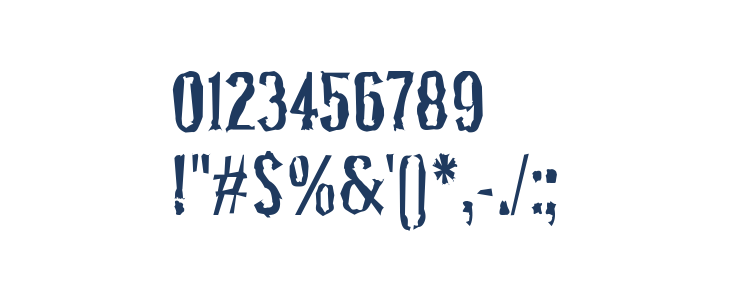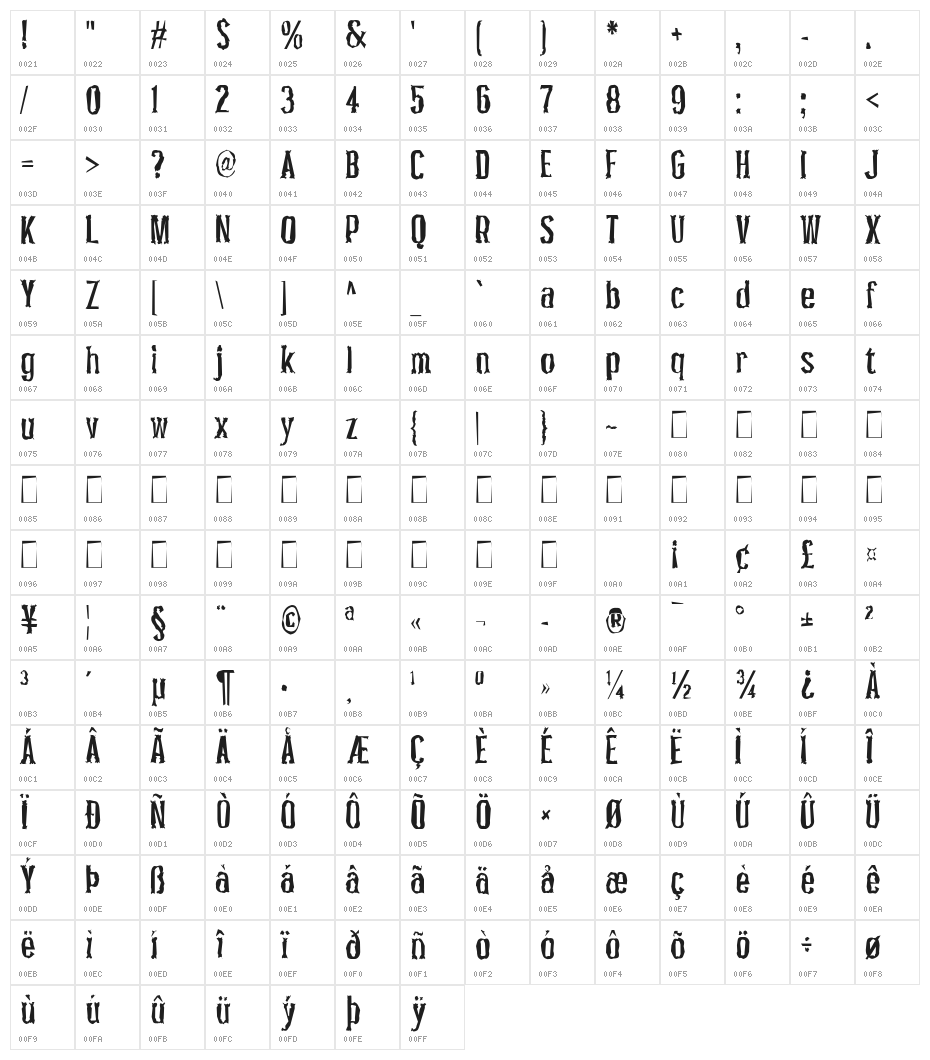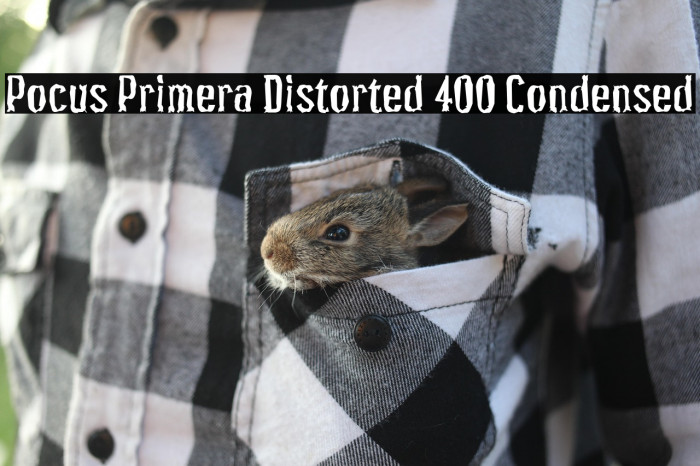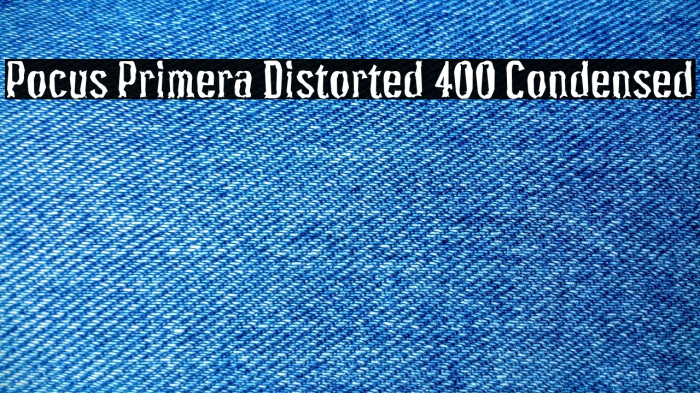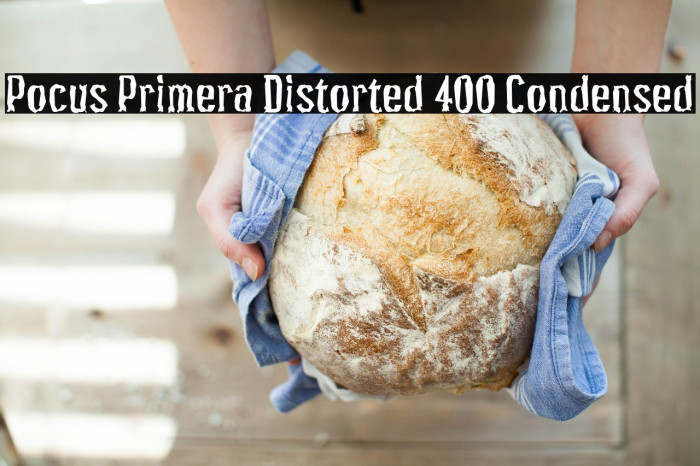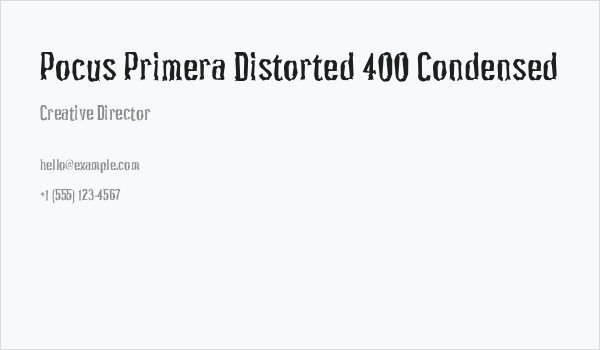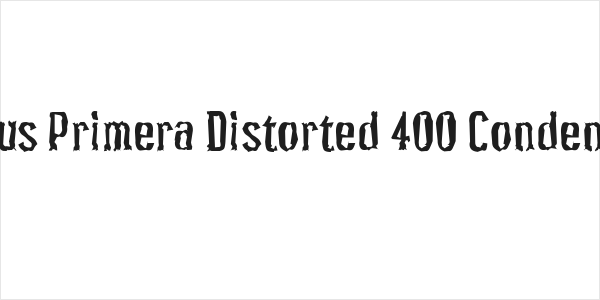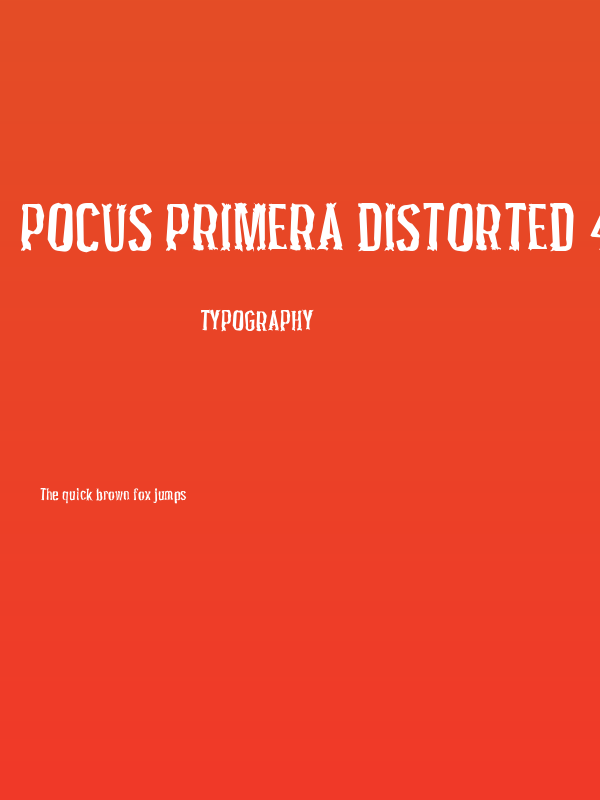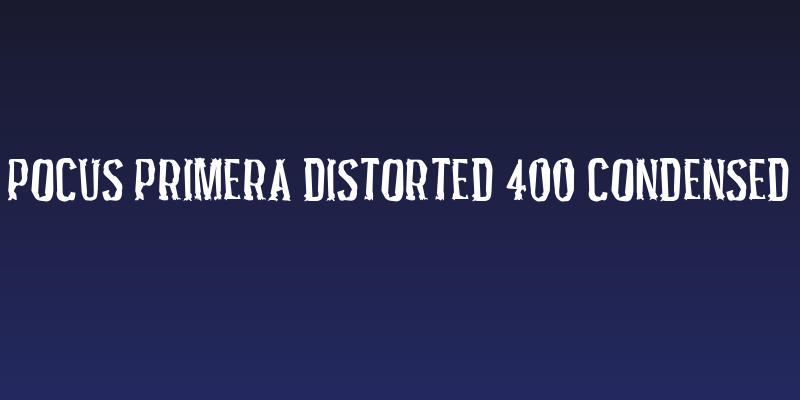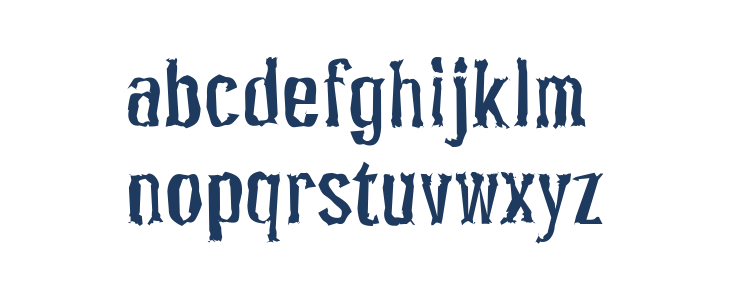
Pocus Primera Distorted 400 Condensed Font
Pocus Primera Distorted 400 Condensed Description
This font features a highly stylized and distorted appearance, with jagged edges and irregular shapes that give it a unique, edgy look. The characters are condensed, creating a compact and intense visual impact. The uppercase and lowercase letters maintain a consistent style, with exaggerated serifs and uneven lines that suggest a hand-drawn or distressed effect. Numbers and special characters follow the same design principles, ensuring a cohesive aesthetic throughout. This font is ideal for projects that require a bold, attention-grabbing typeface with a touch of grunge or horror.
| Proposed Projects | Ideal for horror-themed posters, edgy album covers, or any project needing a bold, distressed look. |